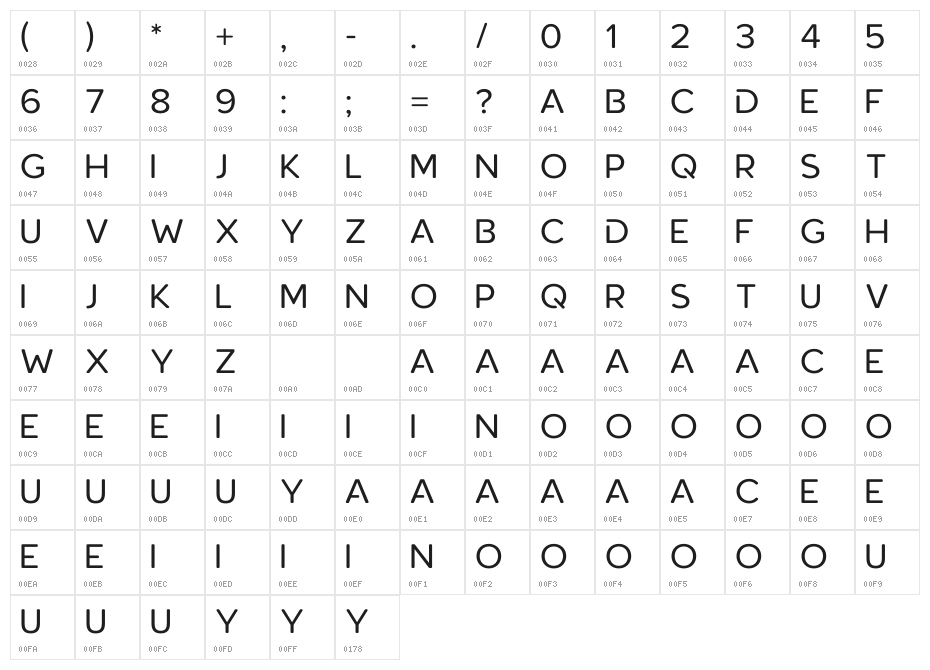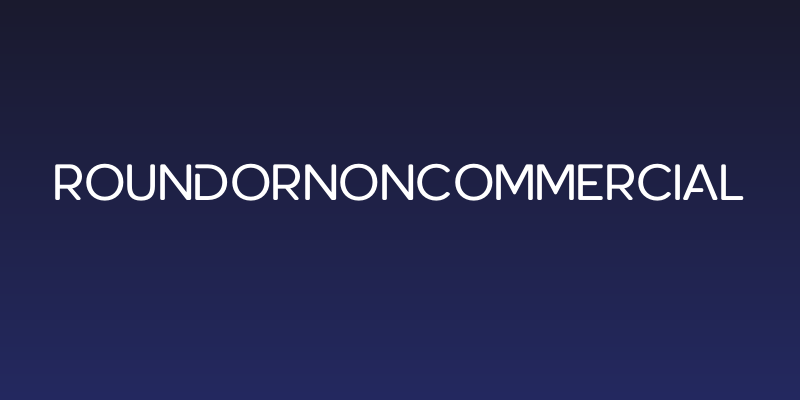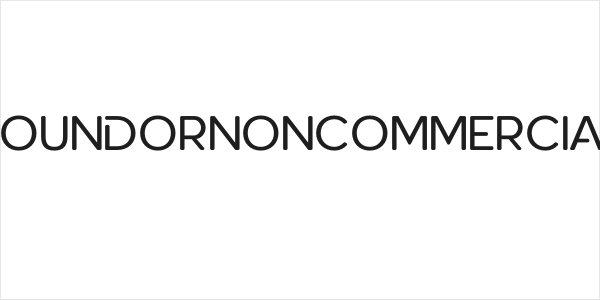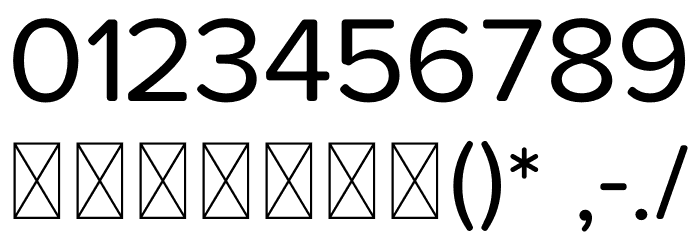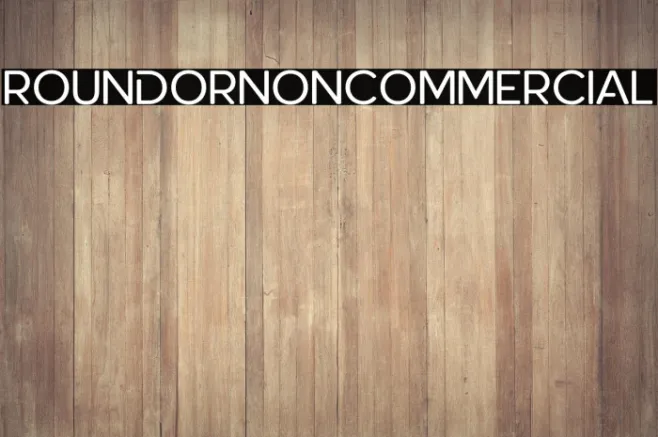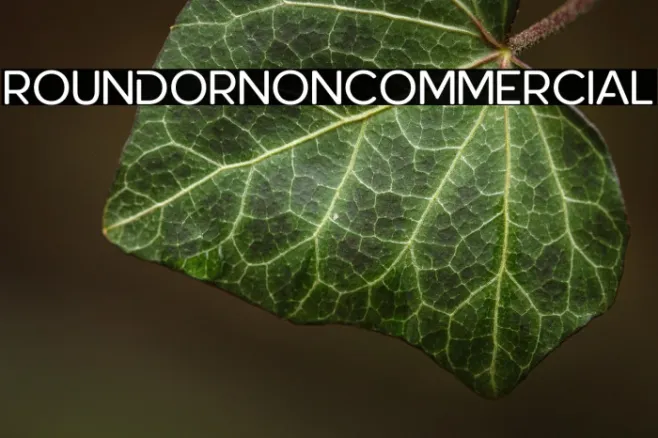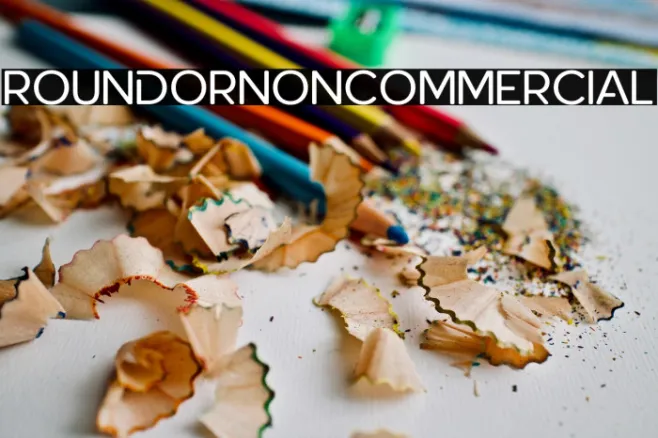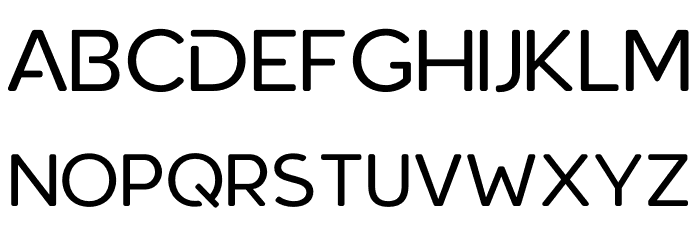
RoundorNonCommercial Font
RoundorNonCommercial Description
This font features a clean, geometric design with rounded edges, giving it a modern and approachable appearance. The uniform stroke width and minimal contrast contribute to its sleek and contemporary look. The characters are well-balanced with consistent proportions, making it highly legible across various sizes. The numerals and special characters maintain the same rounded style, ensuring visual harmony throughout. Its simplicity and clarity make it versatile for a wide range of applications.
| Proposed Projects | Ideal for branding, digital interfaces, signage, and editorial design where clarity and modernity are desired. |